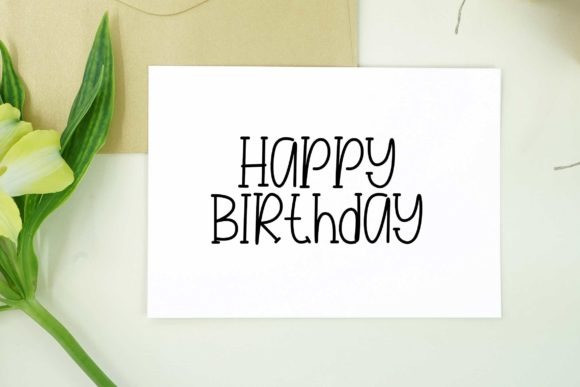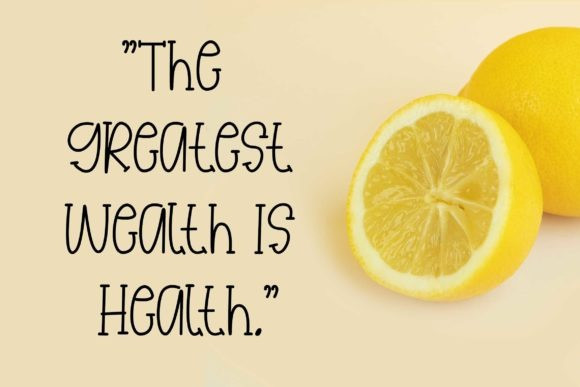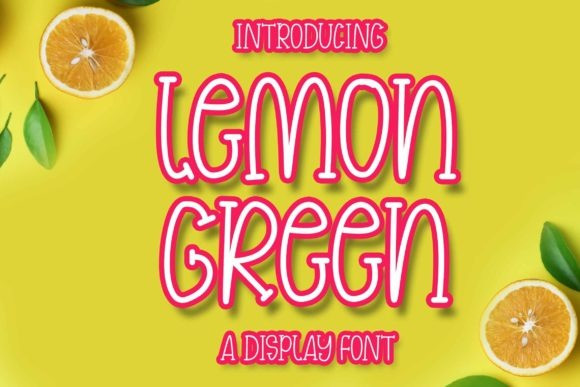
Lemon Green Font
Lemon Green Font is a serif font with a fun and cute look. It is suitable for various projects such as children’s t-shirts, book cover titles, children’s posters, t-shirts, birthday cards, and many other designs.